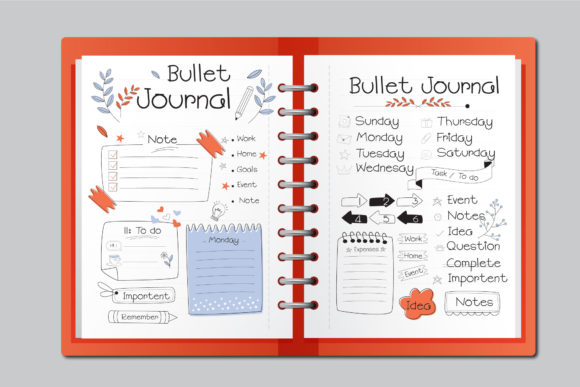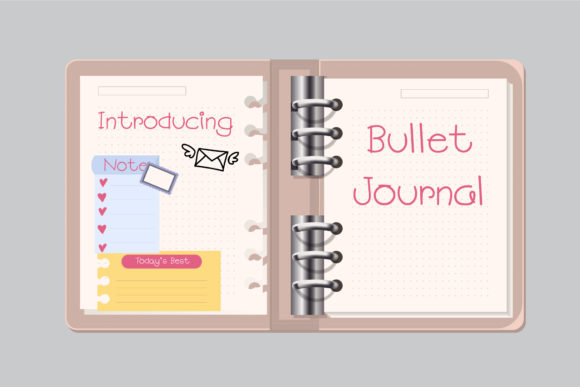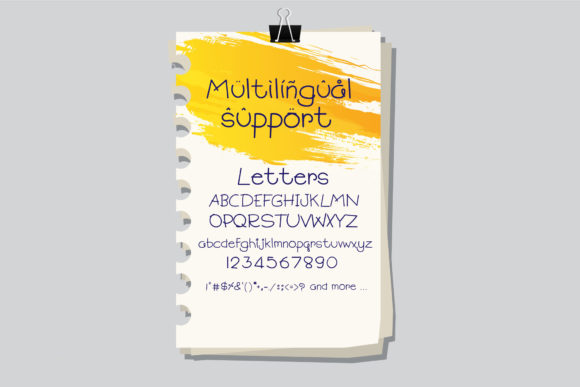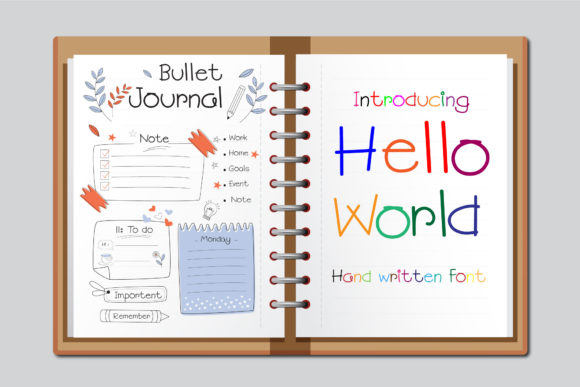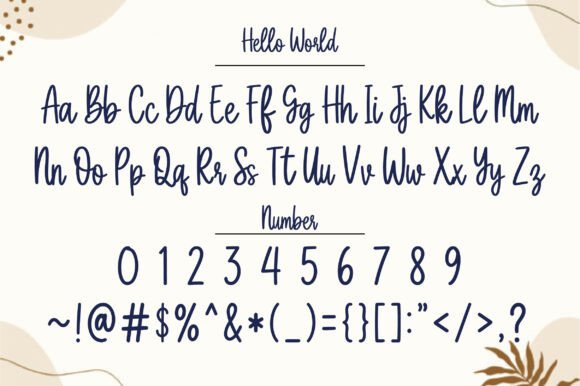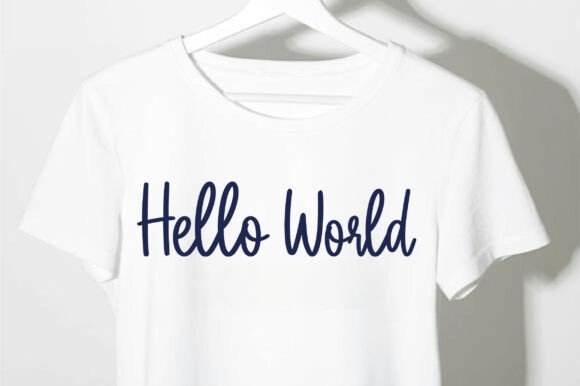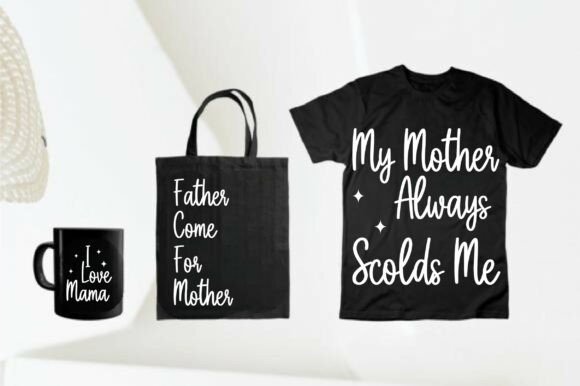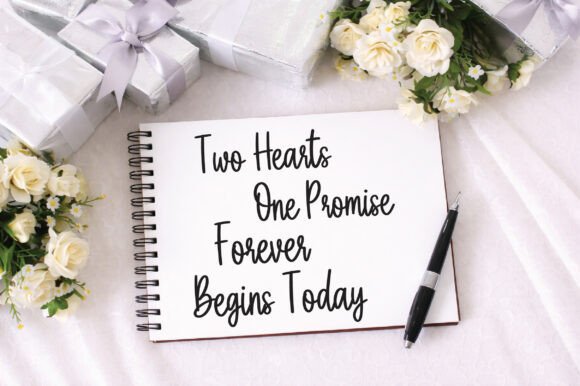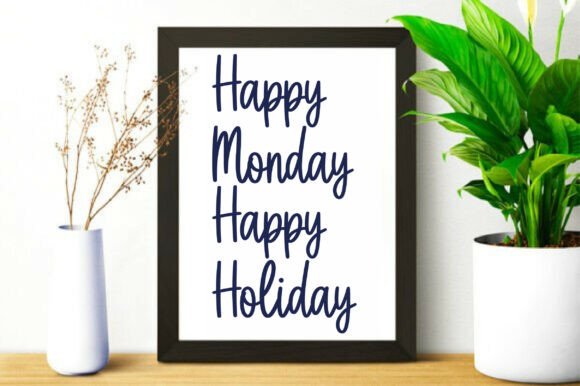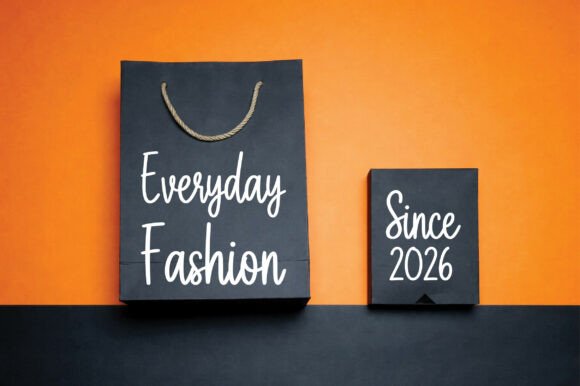
Discover the Simple yet Powerful Hello World Font
Have you ever sat down at your desk, stared at a blank page, and wondered where to start on a new creative project? You’re not alone. It’s the moment when inspiration strikes, and the right font can be the spark that sets your imagination ablaze. For many designers, this moment is the perfect opportunity to introduce a font that’s both timeless and versatile – the Hello World Font.
This beautiful handwritten font is more than just a pretty face; it’s a reliable companion that can elevate any creation, regardless of the topic or theme. With its thin lines and simple design, the Hello World Font is the perfect addition to any designer’s library, offering endless possibilities for creative expression.
Hello World Font Key Features
• Font Family: A sans-serif font designed specifically for digital displays, ideal for use in various applications such as web development, mobile apps, and digital signage.
• Font Sizes: Available in a range of sizes from 8pt to 72pt, making it suitable for use in various contexts, from small UI elements to large-scale signage.
• Resolution: Optimized for high-resolution displays, ensuring crisp and clear text rendering on devices with high pixel density.
• Unique Characteristics: Designed with a focus on readability and legibility, the font features a clean and modern aesthetic, making it perfect for use in digital applications where clear communication is crucial.
• Language Support: Supports a wide range of languages, including Latin, Cyrillic, Greek, and many others, making it a versatile choice for global applications.
Hello World Font Review
I’ve had the chance to work with the Hello World Font, and I’m excited to share my honest thoughts. ✨ First of all, I love the playful and friendly vibe it brings to any project. The font is highly customizable, which makes it perfect for designers who want to add a personal touch. ✨ The font also comes with a wide range of weights, from light to bold, making it suitable for various design applications.
One of the things that really stood out to me was the font’s versatility. I was able to use it for logos, headings, and even body text without any issues. The font also works well in both digital and print formats.
• Highly customizable
• Wide range of weights
• Works well in both digital and print formats
• Not suitable for formal or professional applications
• Some users may find the font too playful or distracting
Overall, I think the Hello World Font is a great choice for designers who want to add some personality to their projects. While it may not be the best fit for formal applications, it’s perfect for creative projects where a playful touch is needed.
The Hello World Font is ideal for creating eye-catching headings and titles. It’s also great for adding a touch of personality to your designs.
Some common use cases include:
• Creating a bold and modern logo.
• Designing a trendy social media graphic.
• Adding a decorative touch to a presentation or document.
Alternatives to “Hello World Font” for Designers
Open Sans is a modern sans-serif font designed by Steve Matteson. It is highly legible and works well for digital interfaces. Use it for web design, mobile apps, and digital signage. Compared to Hello World Font, Open Sans has a more neutral tone and a wider range of weights.
Lato is a sans-serif font designed by Łukasz Dziedzic. It has a clean and elegant look, making it suitable for corporate branding, advertising, and editorial design. Unlike Hello World Font, Lato has a more refined and sophisticated feel.
Montserrat is a sans-serif font designed by Julieta Ulanovsky. It has a urban feel and is inspired by the street signs in Montserrat, a neighborhood in Buenos Aires. Use it for urban-themed designs, branding, and editorial content. Compared to Hello World Font, Montserrat has a more edgy and industrial look.